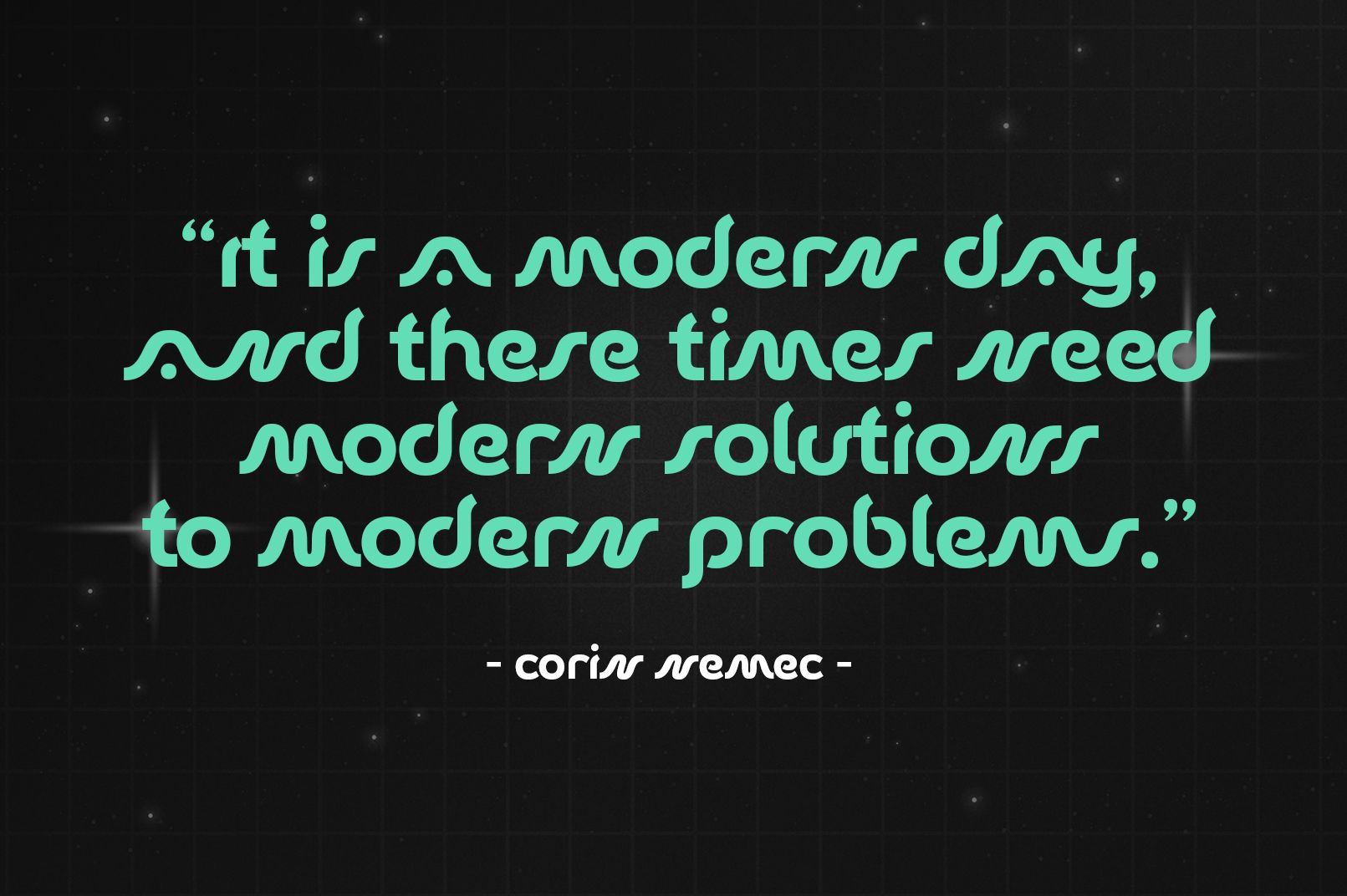
Novan – Modern Font
Introducing Novan! a modern font from Drizy! It’s suitable to complete your project especially for a techno and futuristic theme.
Step into the modern era of typography with Novan – a font that seamlessly blends elegance with contemporary flair. Its clean lines and sleek design capture the essence of modernity, making it the perfect choice for projects that demand a fresh and sophisticated look.
Novan’s versatility shines through in a variety of design applications, from sleek branding materials to minimalist website layouts. This font effortlessly brings a touch of refinement and professionalism to your designs, elevating them to new heights.
Novan Features:
Uppercase & Lower Case
Numeral & Punctuations
Multilingual & Alternates
Ligatures